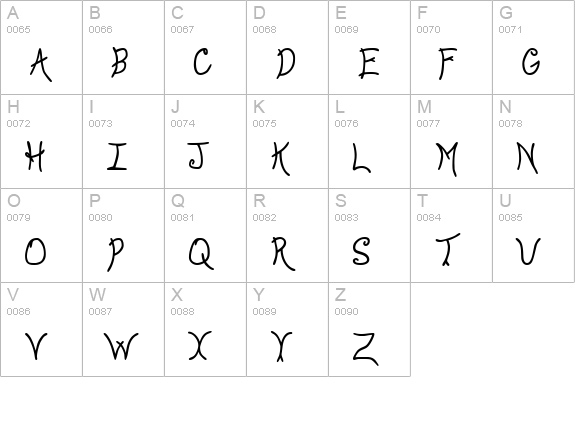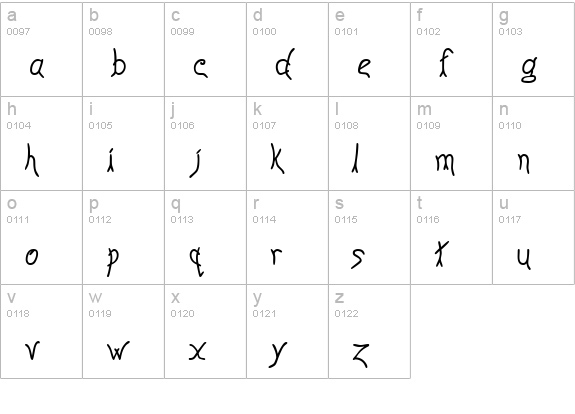
TR Anyway Font Details
TR Anyway is a modern and stylish font that exudes elegance and sophistication. With its sleek lines and contemporary design, this font is perfect for a wide range of design projects, from branding to editorial content. The versatility of TR Anyway makes it a go-to choice for designers looking to make a bold statement. Best of all, TR Anyway is available for free download at FontsMarket.com. This means you can access this stunning font without any cost, making it a valuable addition to your font library. Whether you're working on a personal project or a client commission, TR Anyway is sure to elevate your design work to the next level. Download it today and add a touch of sophistication to your creations.